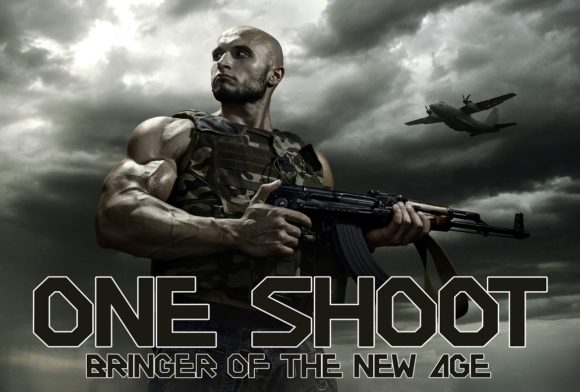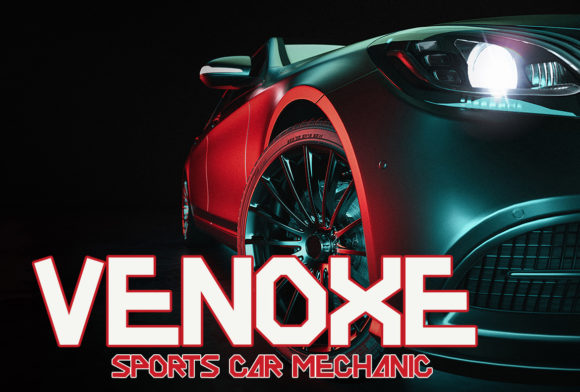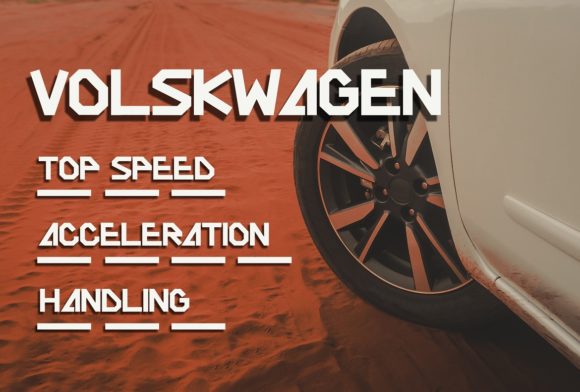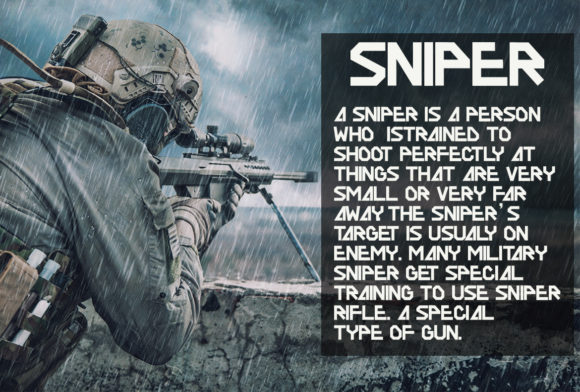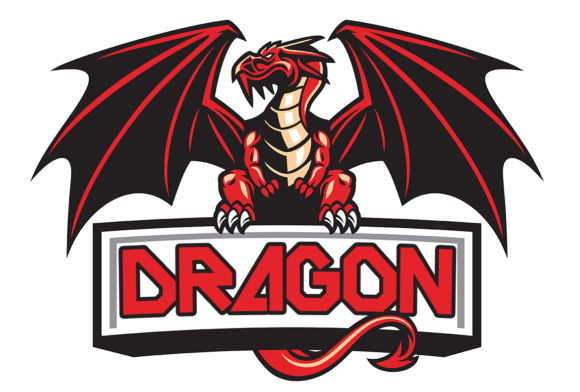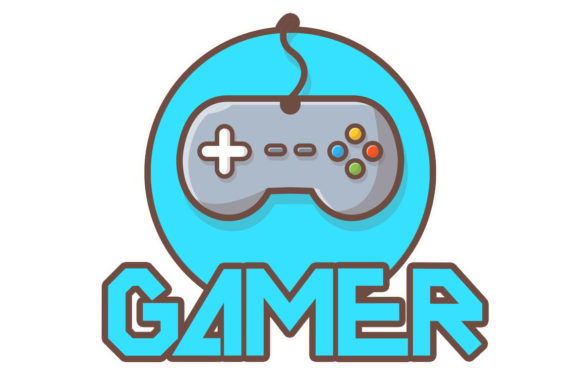
Agoxes Game Font: Elevate Your Designs with a Stunning Display Font
Are you a designer, gamer, or crafty enthusiast looking for a font that can add a touch of authenticity and excitement to your projects? Look no further than Agoxes Game Font! This awesome display font is designed to bring a unique and captivating style to your designs, making it perfect for a wide range of applications, from games and posters to movies, magazines, and more.
What Makes Agoxes Game Font So Special?
Agoxes Game Font boasts an authentic style that is reminiscent of classic games and movies. Its bold and striking appearance is sure to grab attention and leave a lasting impression on your audience. Whether you’re creating a logo, title sequence, or promotional material, this font is designed to make your design stand out from the crowd.
One of the key features that sets Agoxes Game Font apart is its versatility. Its rugged and edgy design makes it perfect for games, while its elegant and refined appearance also makes it suitable for more sophisticated projects, such as movie titles, posters, and magazine covers.
Key Features of Agoxes Game Font
- Authentic Style: Agoxes Game Font features an authentic style that is inspired by classic games and movies.
- Bold and Striking: The font’s bold and striking appearance makes it perfect for designs that require attention-grabbing typography.
- Versatile: Agoxes Game Font is suitable for a wide range of projects, from games and posters to movies, magazines, and more.
- Elegant and Refined: Despite its bold appearance, the font also has an elegant and refined side, making it perfect for more sophisticated projects.
Use Cases for Agoxes Game Font
Agoxes Game Font is perfect for a wide range of design projects, including:
- Games: Add a touch of authenticity and excitement to your game titles, logos, and promotional materials.
- Posters: Create eye-catching posters for movies, concerts, or events with a font that demands attention.
- Movies and TV Shows: Use Agoxes Game Font to create title sequences, promotional materials, or even movie posters.
- Magazines and Editorials: Add a touch of edginess and sophistication to your magazine covers or editorials.
- Branding and Logos: Create a bold and memorable logo for your brand or business.
Why Choose Agoxes Game Font?
There are many fonts available that claim to be versatile and attention-grabbing, but Agoxes Game Font stands out from the crowd. Here are just a few reasons why:
- Unique Style: Agoxes Game Font has a unique and authentic style that is hard to find in other fonts.
- High-Quality Design: The font is designed with high-quality craftsmanship, ensuring that it looks great in any size or application.
If you’re looking for a font that can add a touch of excitement and authenticity to your designs, look no further than Agoxes Game Font. With its bold and striking appearance, versatile design, and high-quality craftsmanship, this font is perfect for a wide range of projects, from games and posters to movies, magazines, and more. So why wait? Download Agoxes Game Font today and take your designs to the next level!